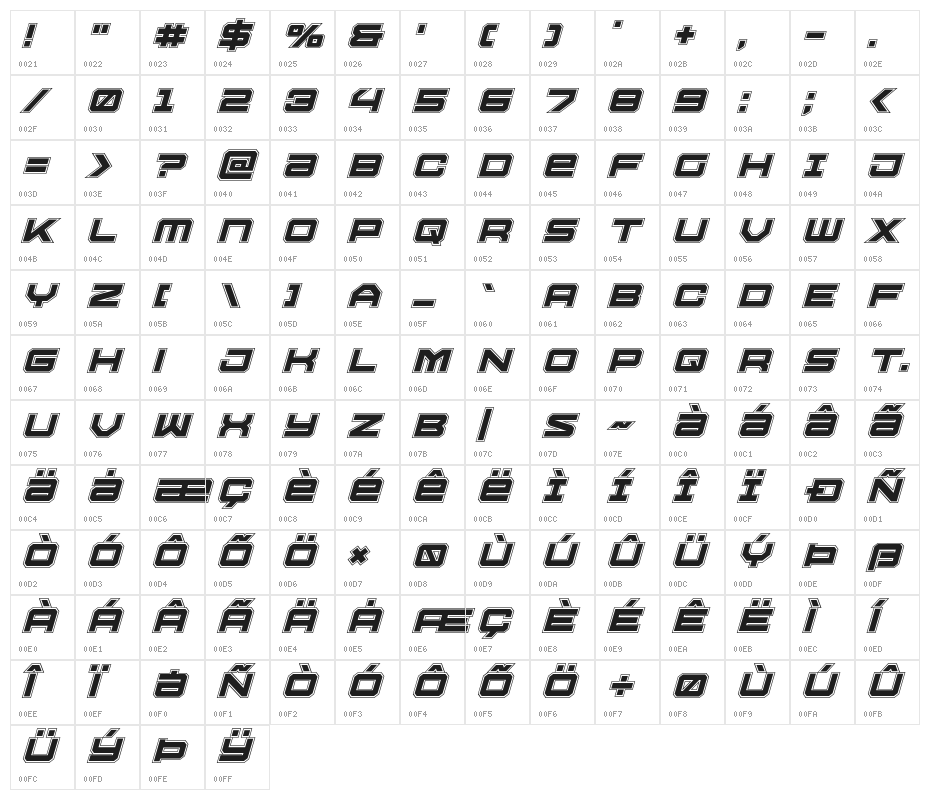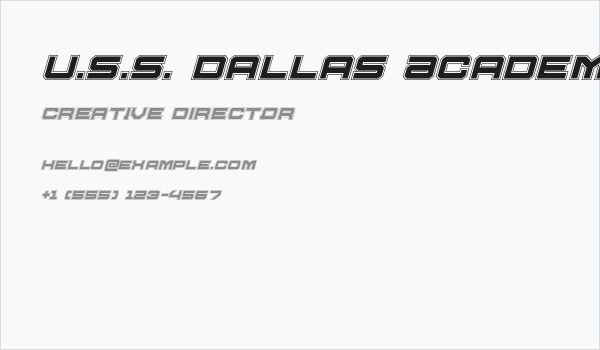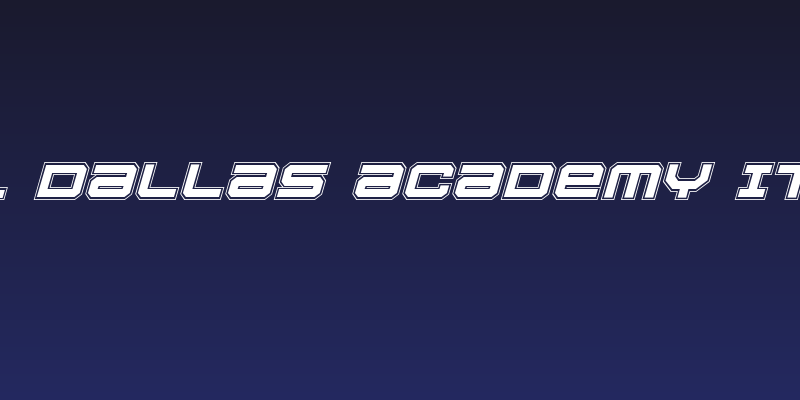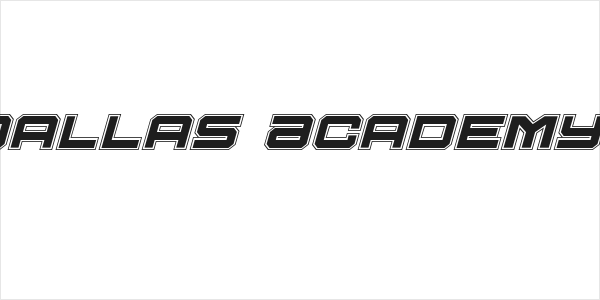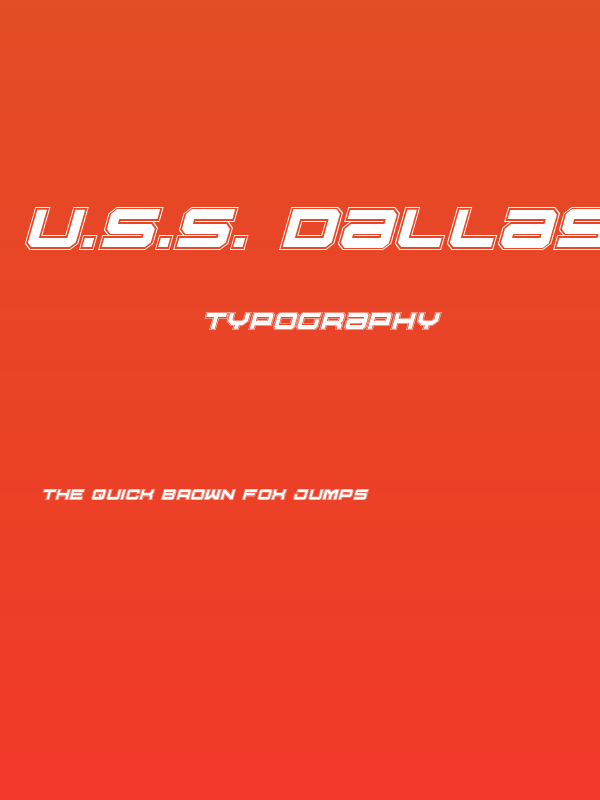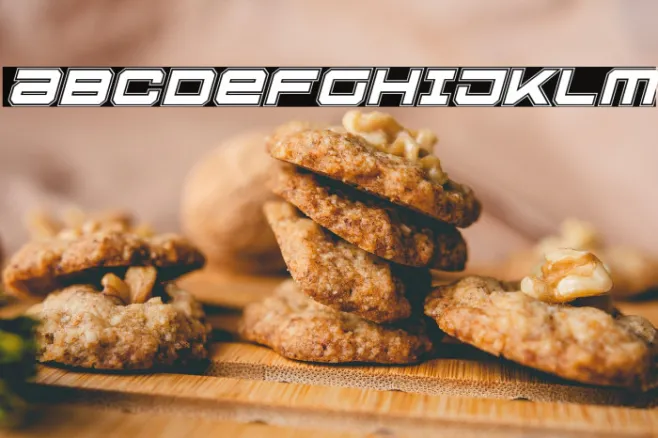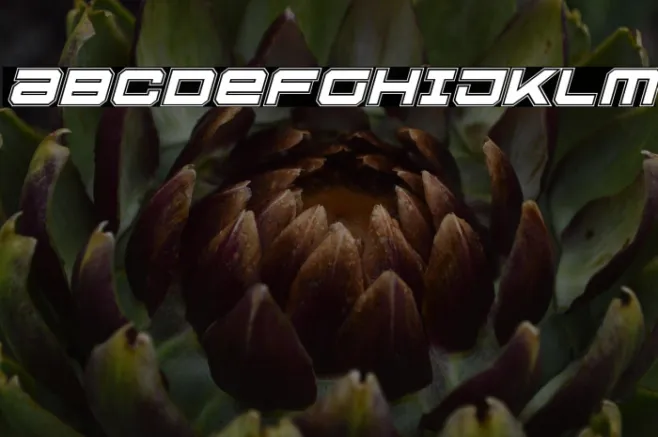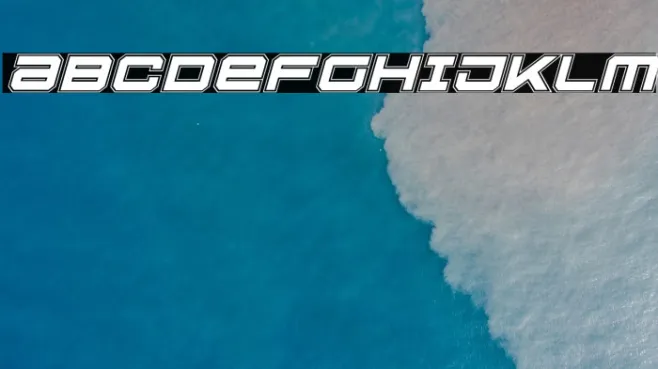
U.S.S. Dallas Academy Italic Font
U.S.S. Dallas Academy Italic Description
This font features a bold, italicized style with a futuristic and sporty appearance. The characters are outlined, giving them a three-dimensional effect that enhances their visual impact. The uppercase and lowercase letters maintain a consistent design, with sharp angles and a slightly condensed form. The numerals and special characters follow the same aesthetic, ensuring uniformity across all glyphs. This font is ideal for projects that require a modern and dynamic look, such as sports branding, technology-related designs, or any creative work that seeks to convey energy and movement.
| Use Case | Logos, Headlines |
| Proposed Projects | Ideal for sports branding, tech designs, and dynamic creative projects. |